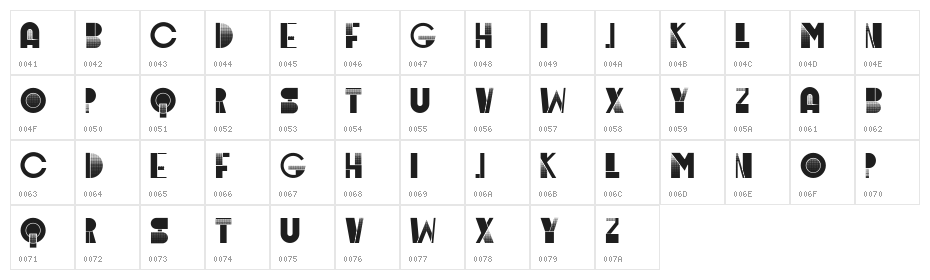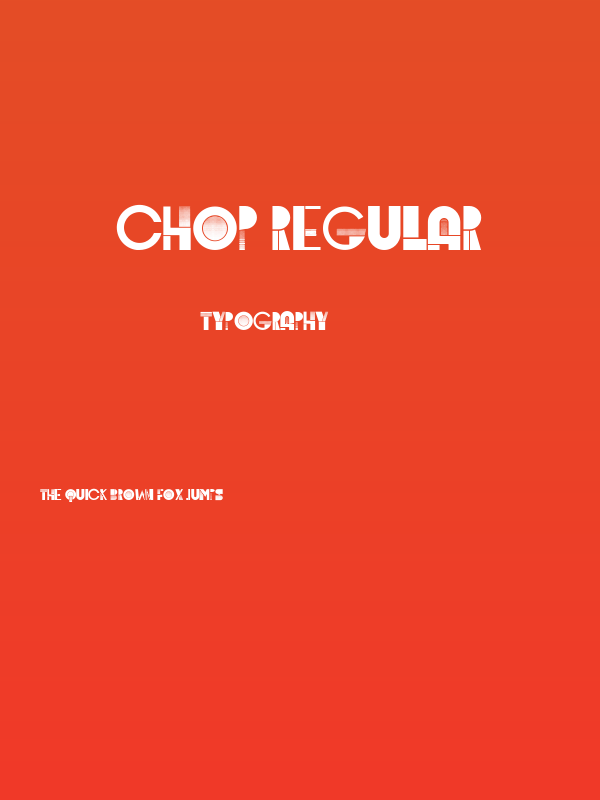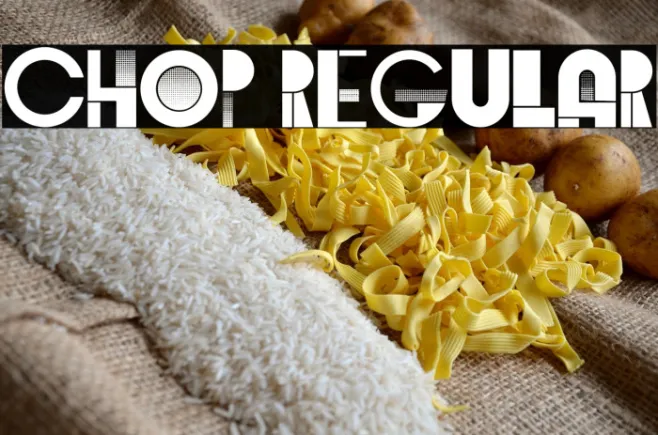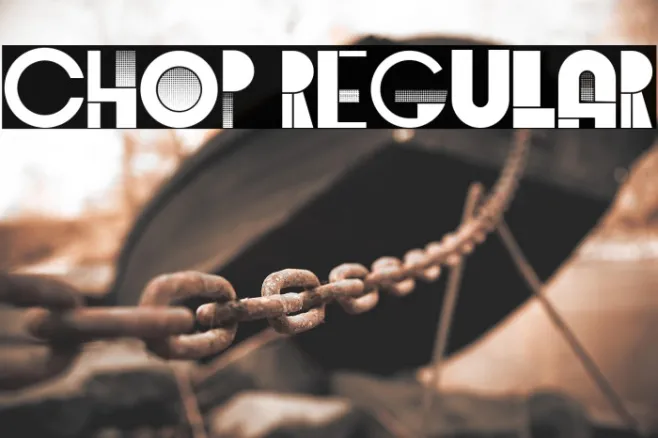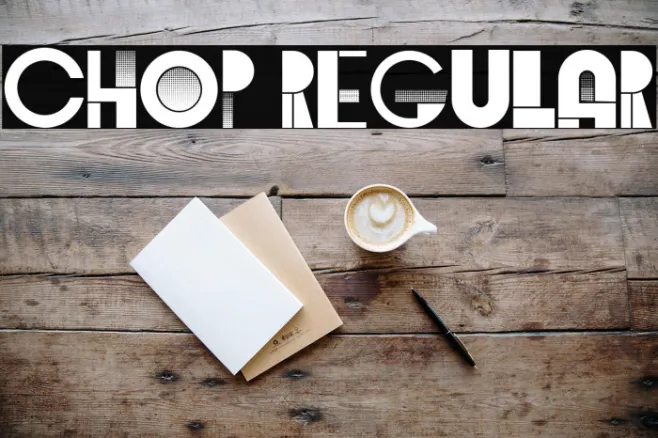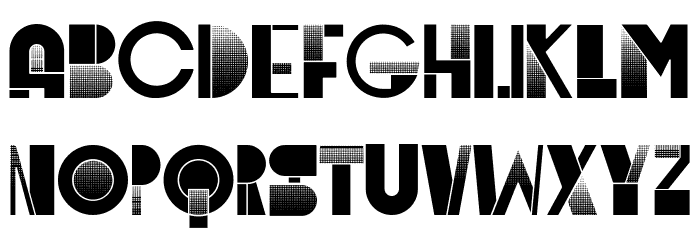
Chop Regular Font
Chop Regular Description
This font features a bold and geometric design with a unique halftone pattern integrated into each character. The letters are constructed with a mix of solid and dotted textures, creating a striking visual effect. The uppercase letters are particularly eye-catching, with their bold forms and innovative use of negative space. The font's style is reminiscent of modern art and design, making it suitable for projects that require a contemporary and artistic touch. Its distinct appearance ensures that it stands out in any application, whether in print or digital media.
| Proposed Projects | Ideal for modern art projects, branding, posters, and any design work that requires a bold statement. |